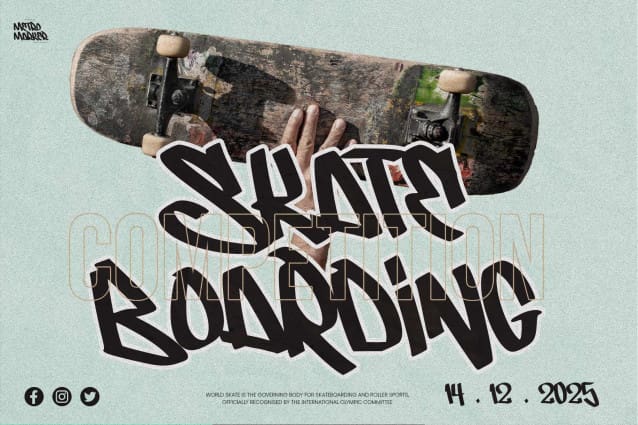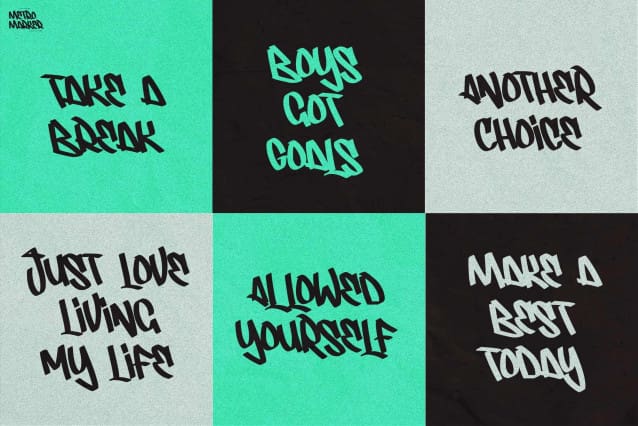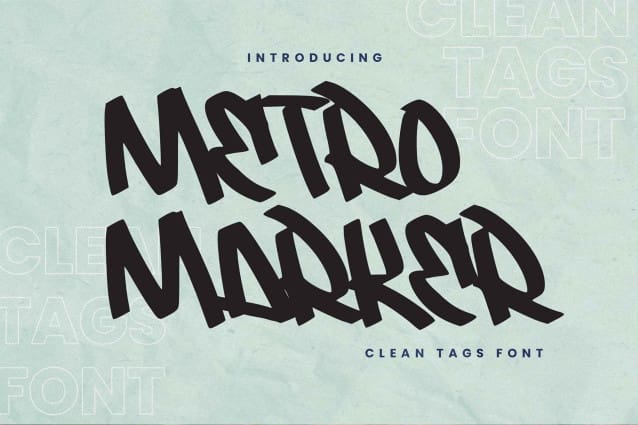
Metro Marker Font
Metro Marker Font – This is a Clean Tags Font, this is a handmade font with more alternates and texture marker, this font is perfect for making a strong statement in your designs.
Add the bold and authentic character of this Font to your next project and capture the essence of the minimalist aesthetic.